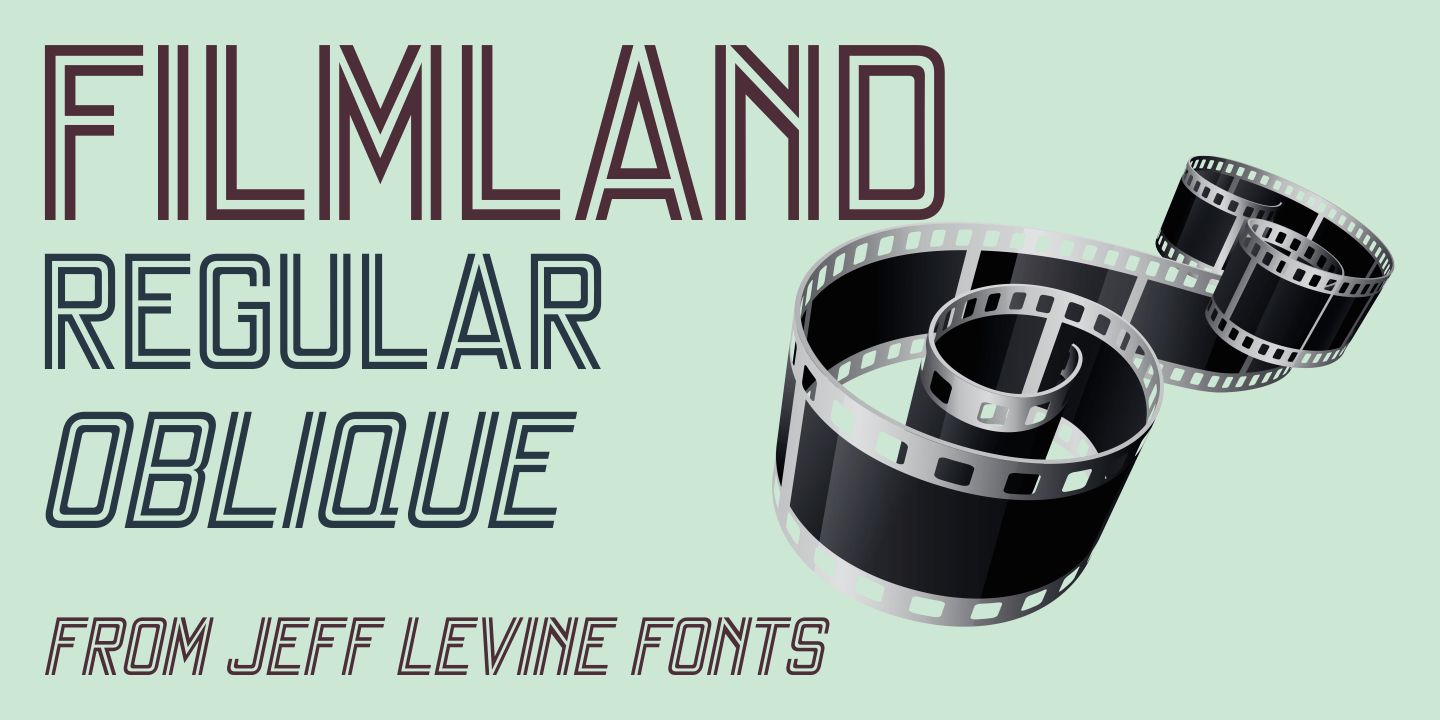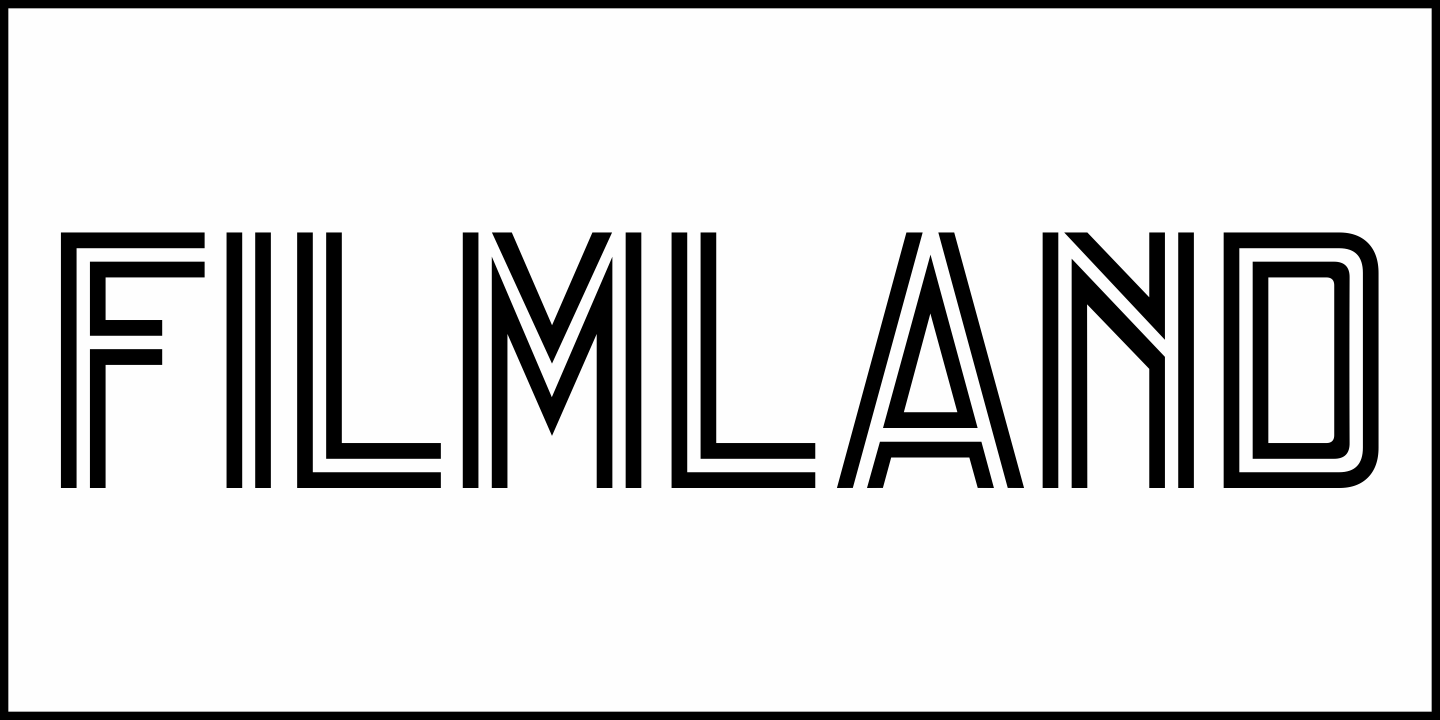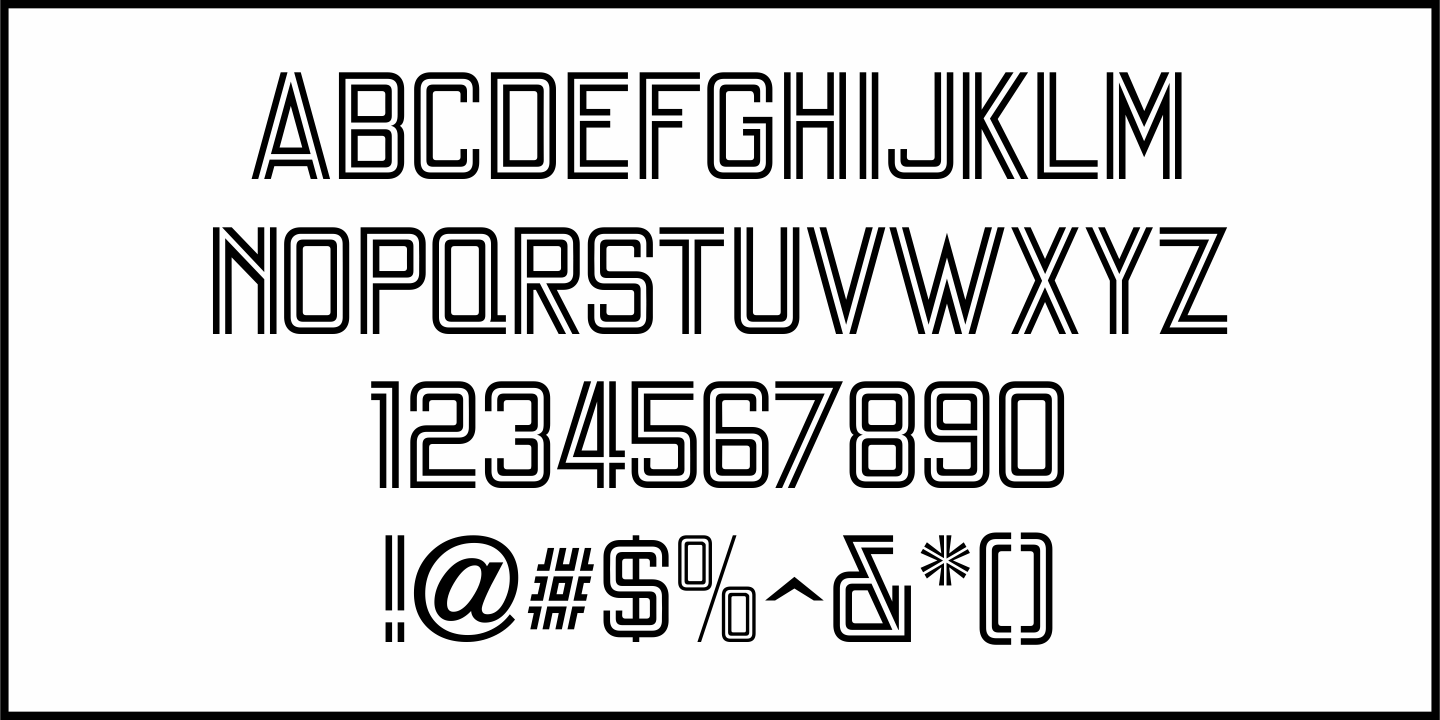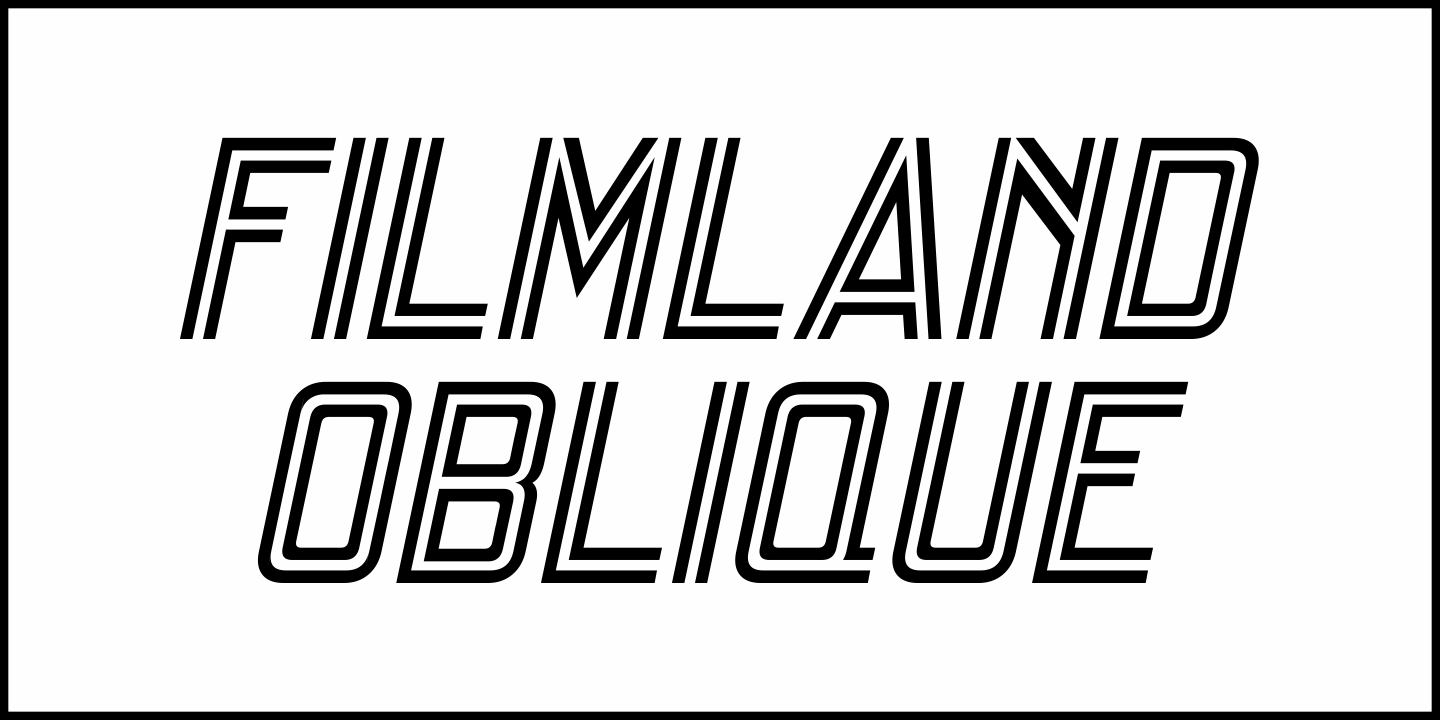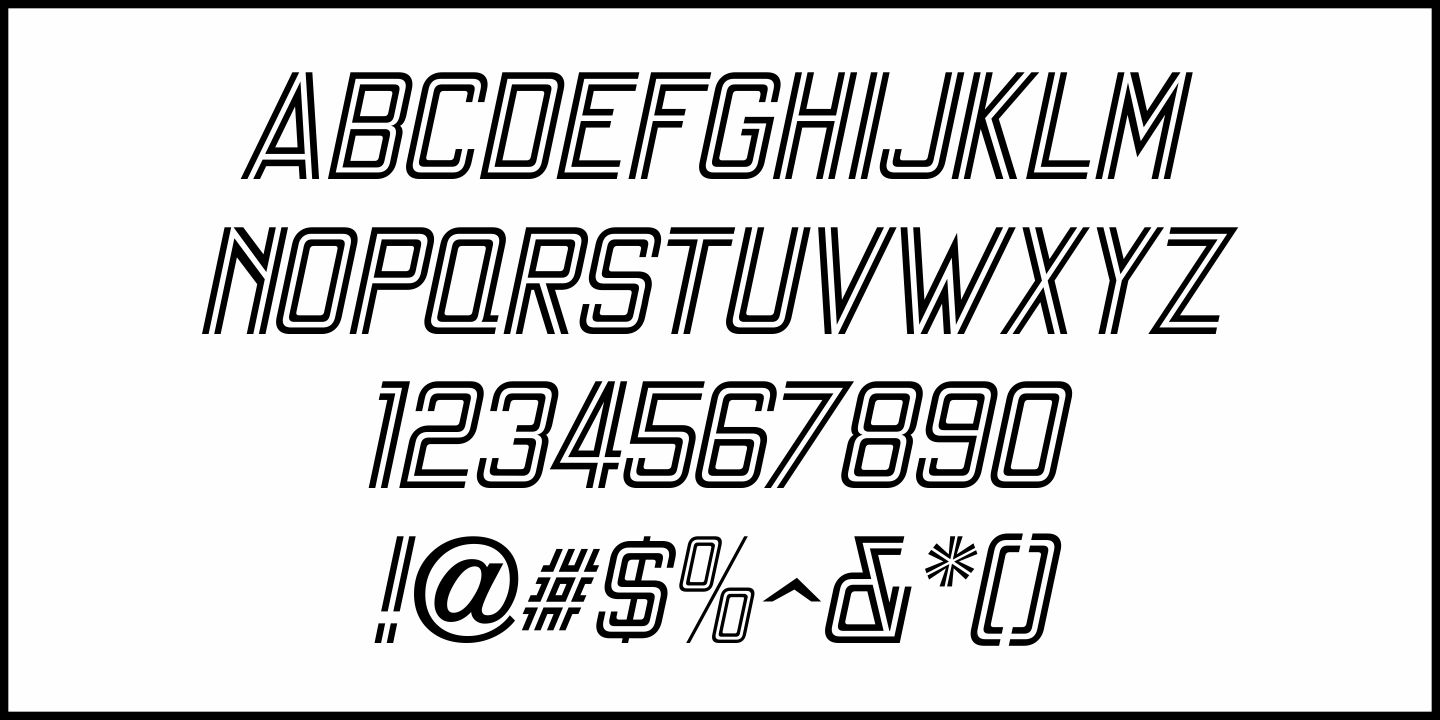
Filmland
A hand lettered, dual line sans serif type style was used for the title of “Filmland” – a 1931 movie fan magazine from India.
This inspired both the digital typeface’s design and name. Filmland JNL is available in both regular and oblique versions.
Filmland by Jeff Levine Fonts